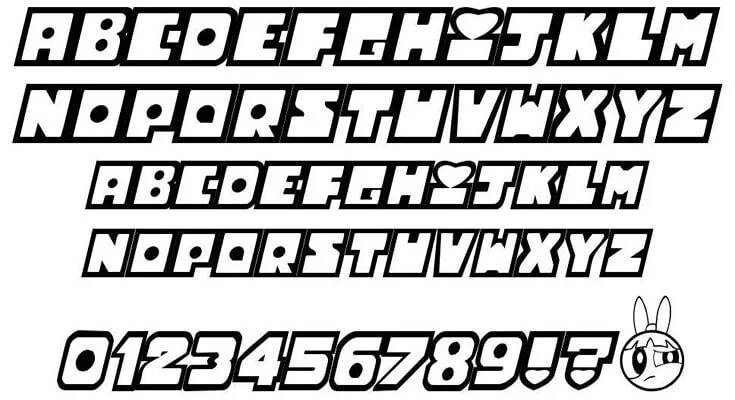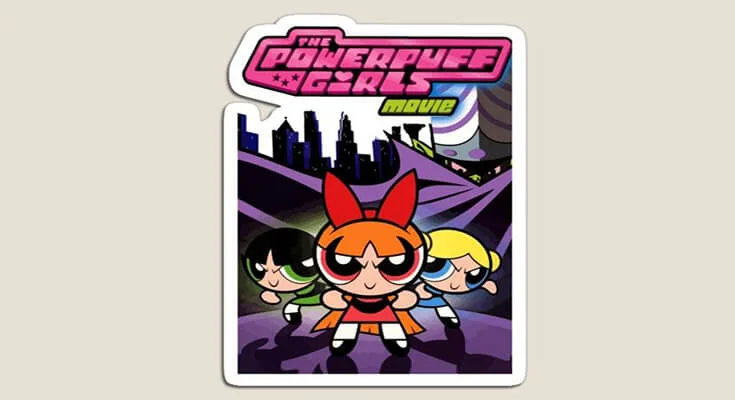
Introducing Powerpuff Girls Font! It is an American superhero animated television series made by animator Craig McCracken and produced by Hanna Barbera for Cartoon Network.
That debuted in 1992 and the last episode aired on 25 March 2005. The cartoon series has run for a total of six seasons with 78 episodes on Cartoon Networks.
During its run, it received 6 awards multiple times including Emmy Awards (6), and Annie Awards (9).
It comes only in regular style along with 110 characters. Furthermore, there are a few dingbats like a dog and puffy girl faces included in it.
The font is also fun and playful, which makes it ideal for projects that are aimed at children or adults who enjoy a touch of nostalgia.
You can use this font for logos, movie posters, banner designs, brochure layouts, social media posters, branding, fabric printings, labeling, cartoons, movie graphics, social media posters, headers, titels, banners, flyers, cards, signs, product packaging materials, as well as stationery printing. Moreover, It is a great choice for creating logos, headings, and other attention-grabbing text elements.
Overall, Powerpuff Girls Font is a great choice for adding a touch of fun and whimsy to your designs. It’s easy to use and looks great on a variety of surfaces.